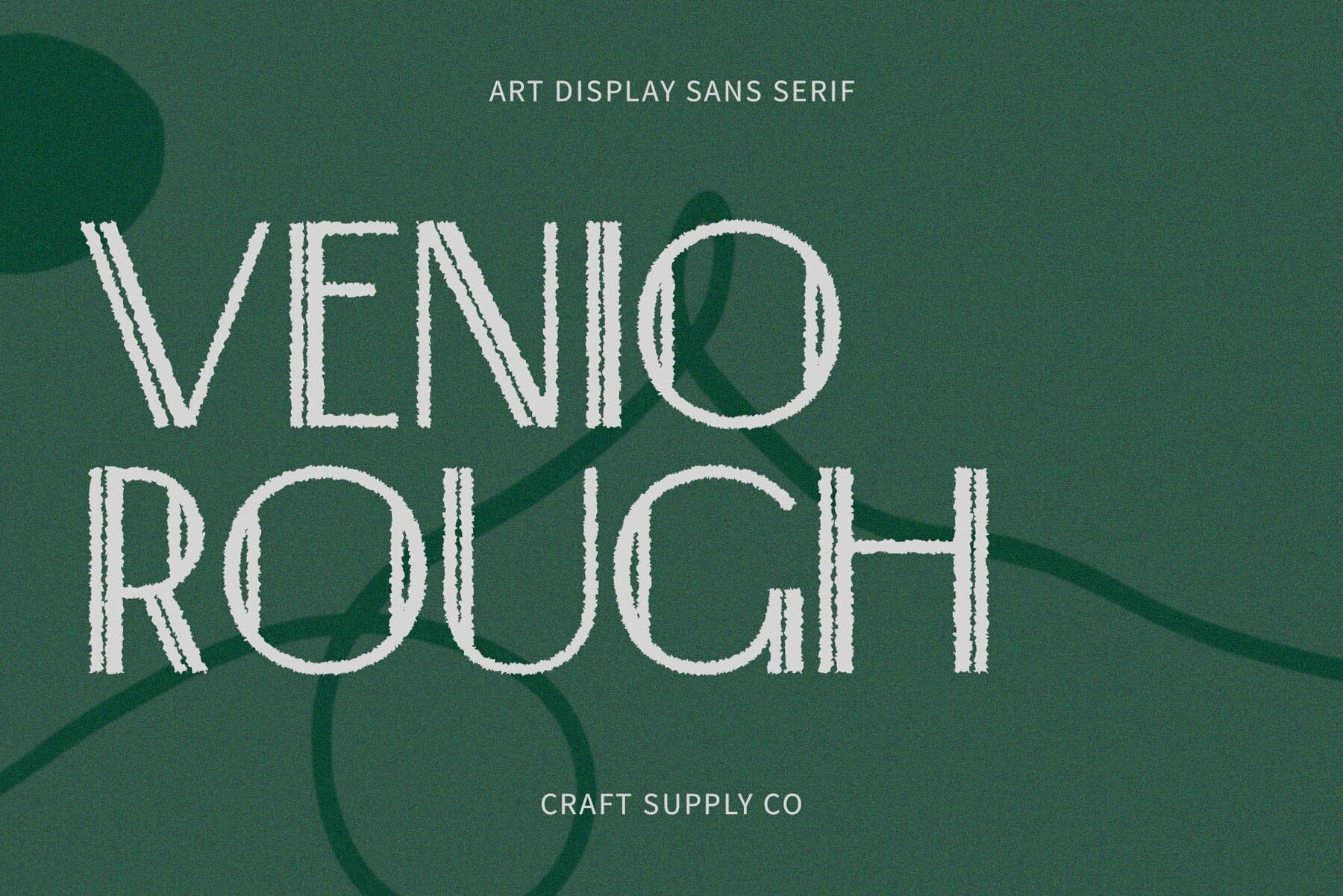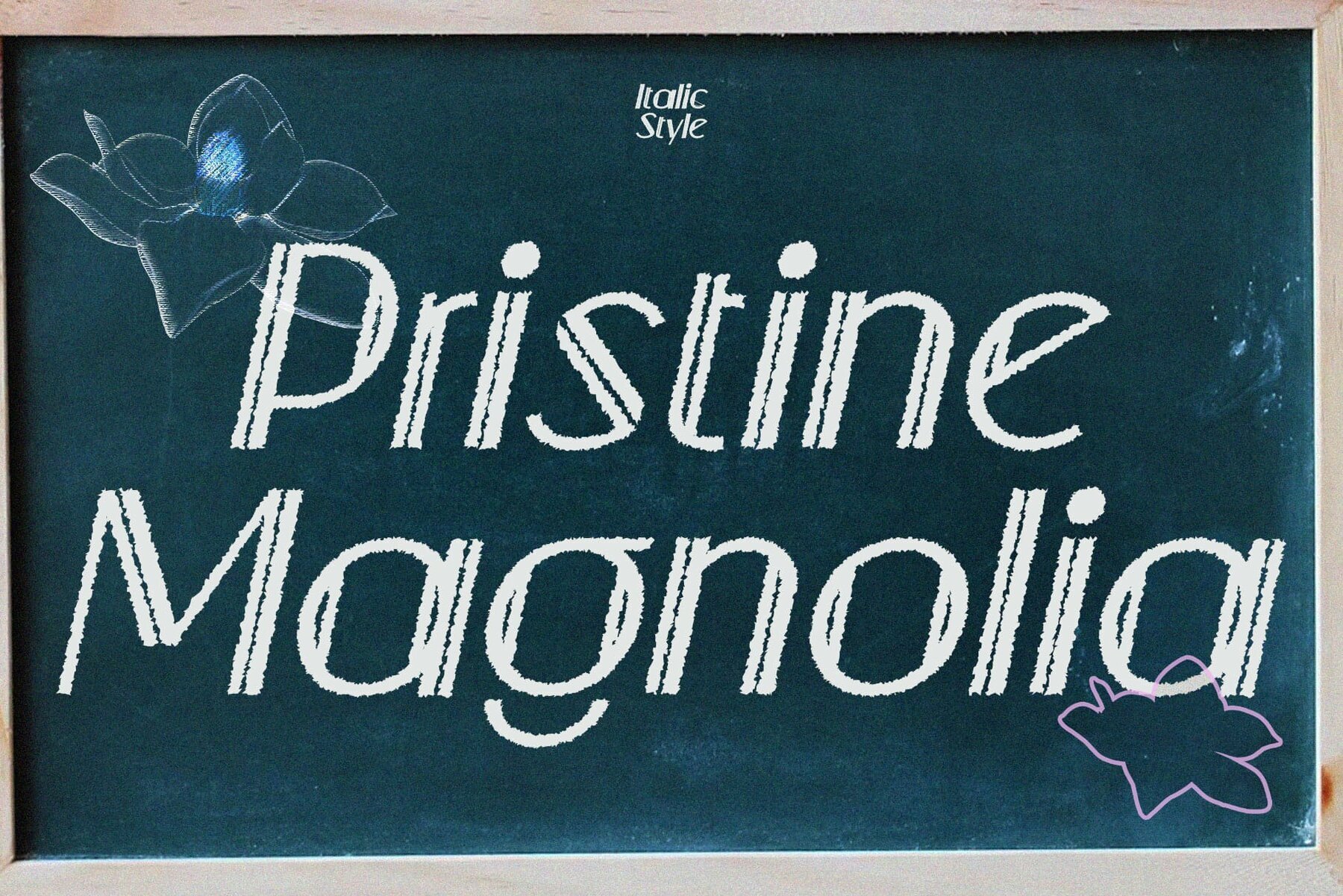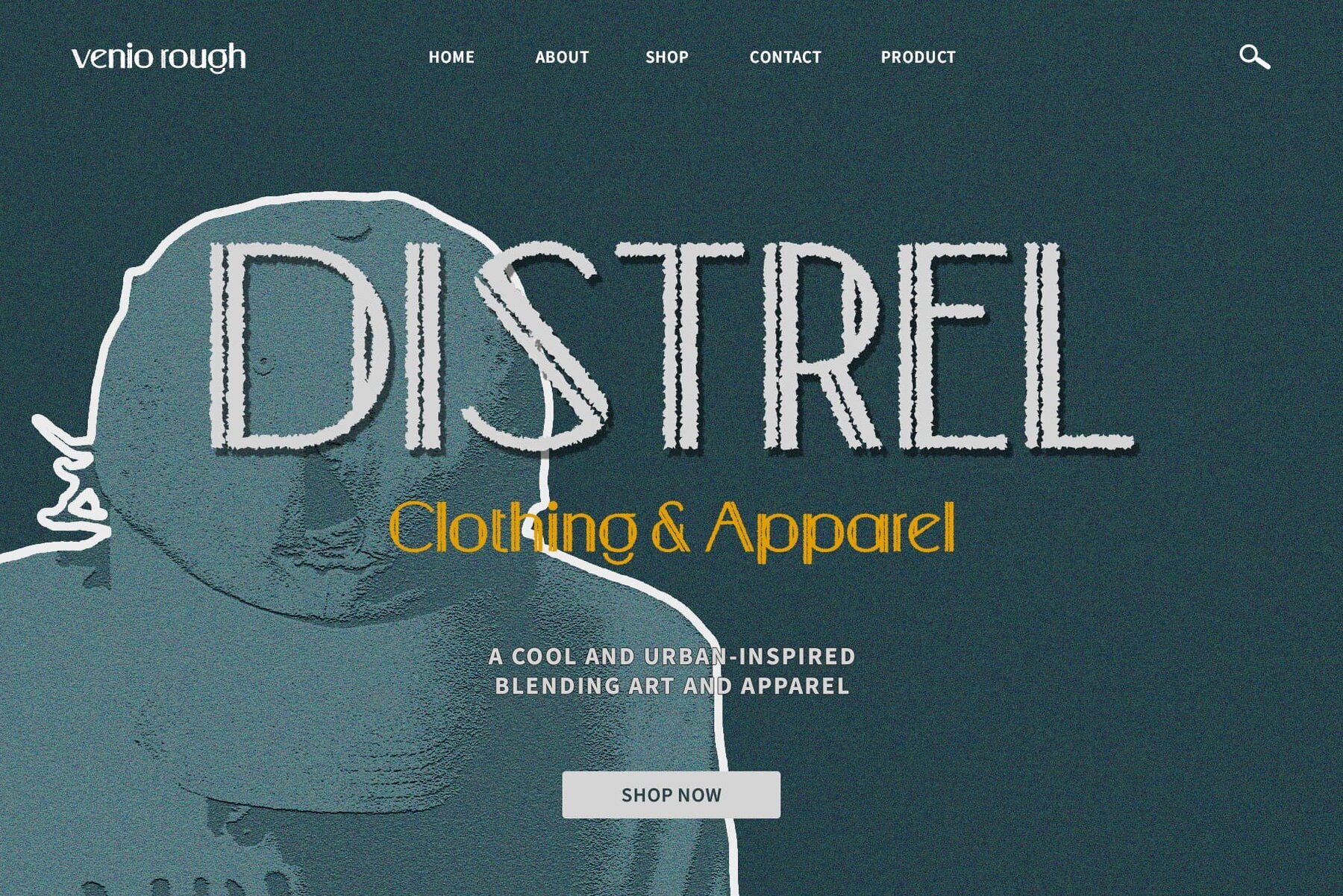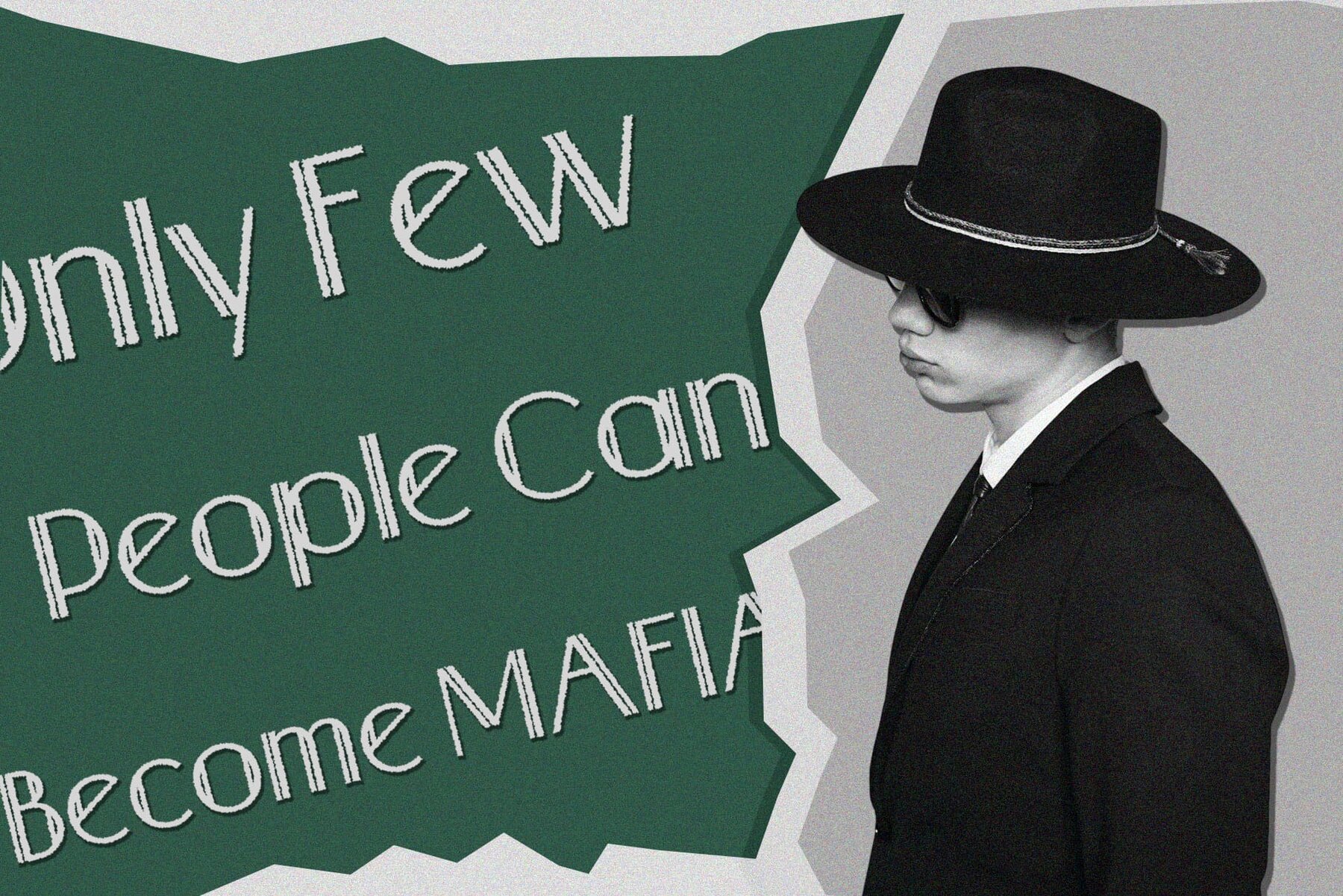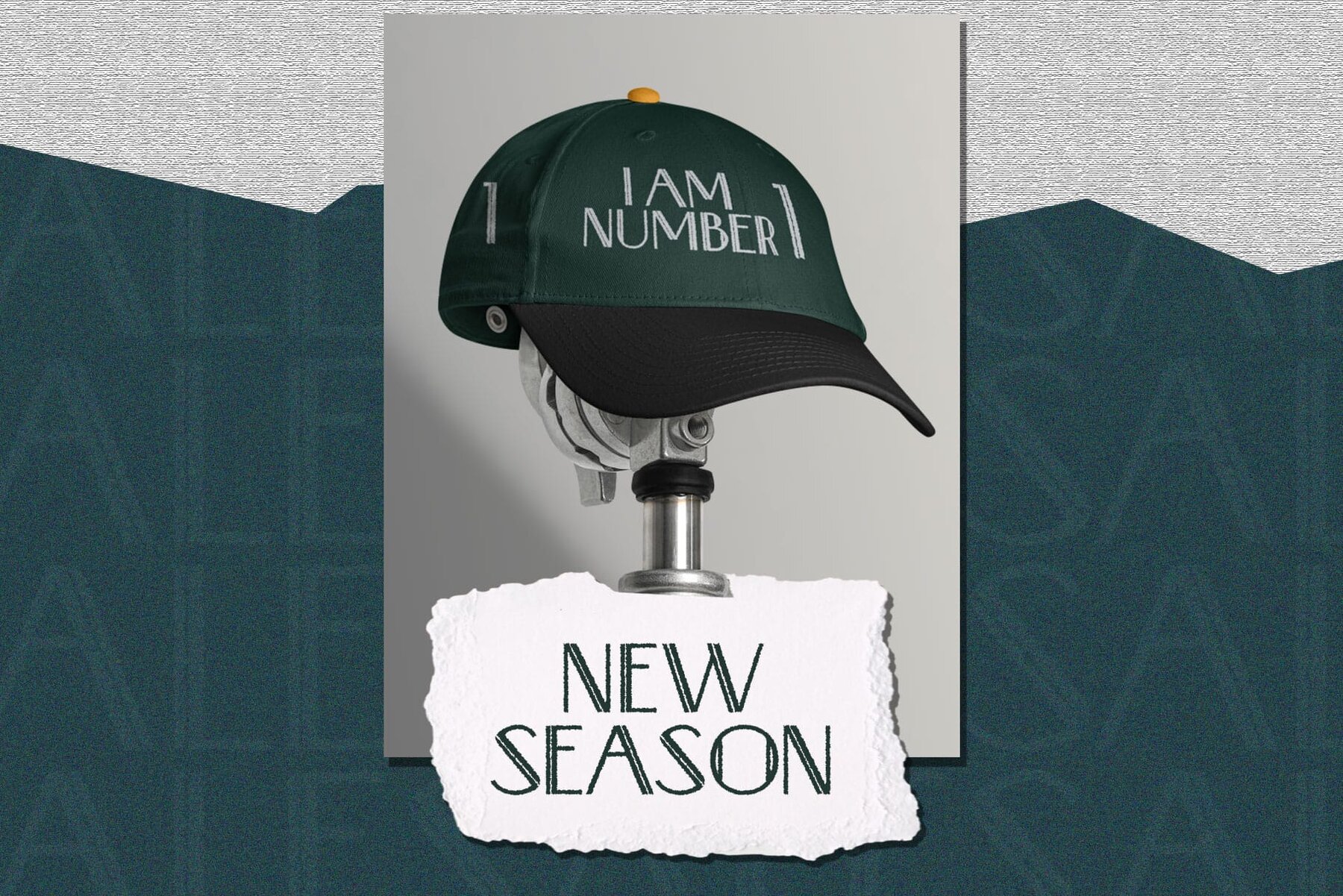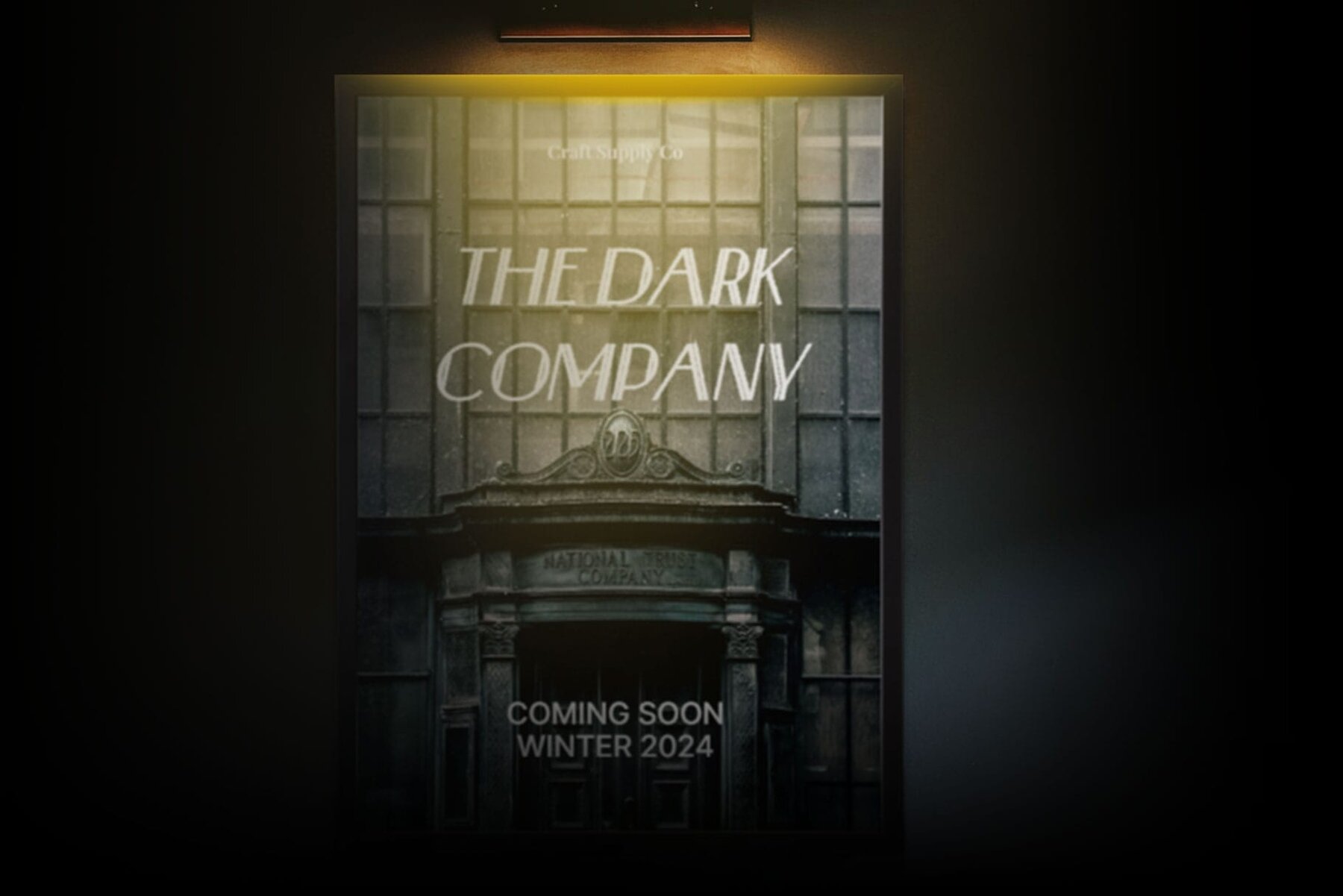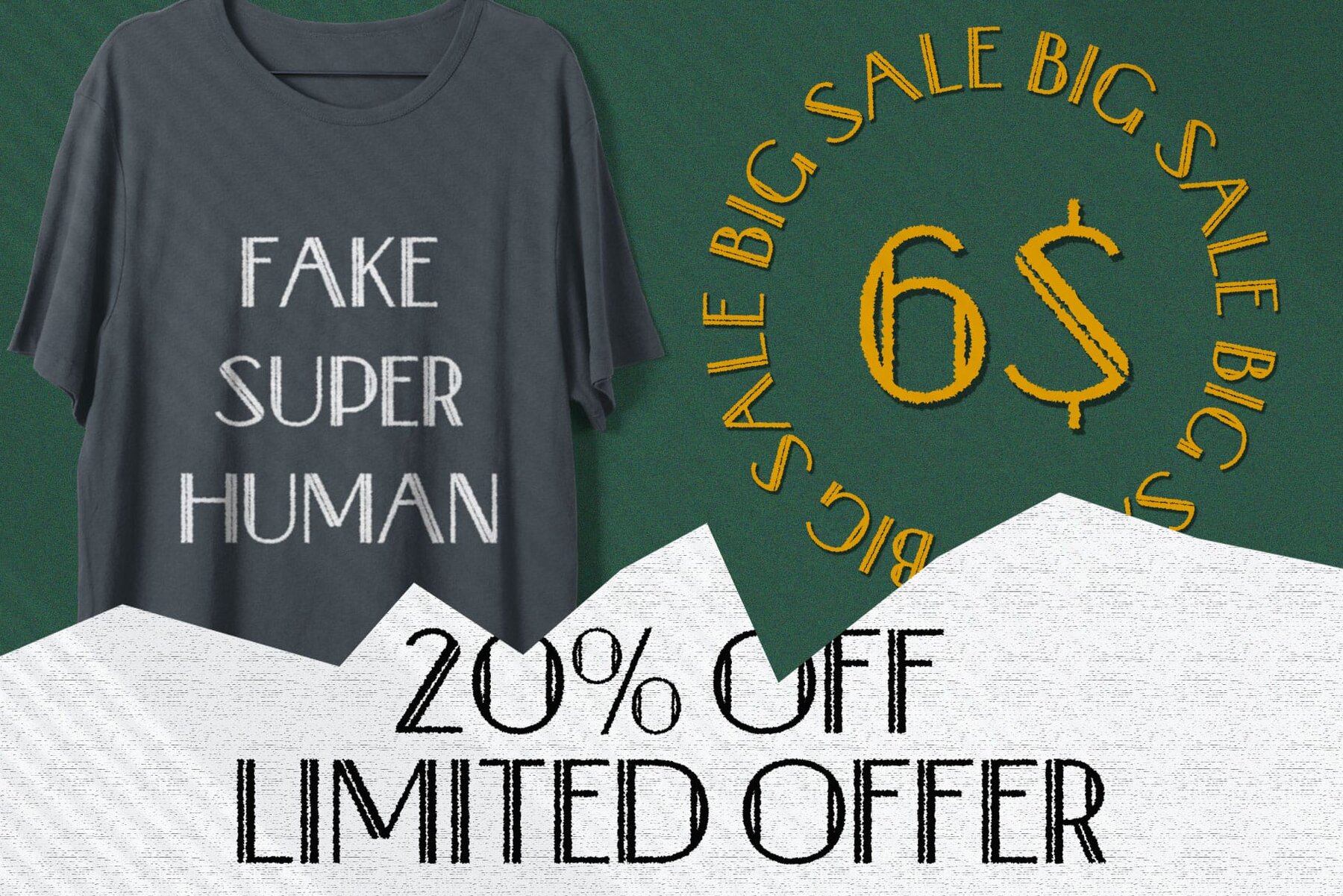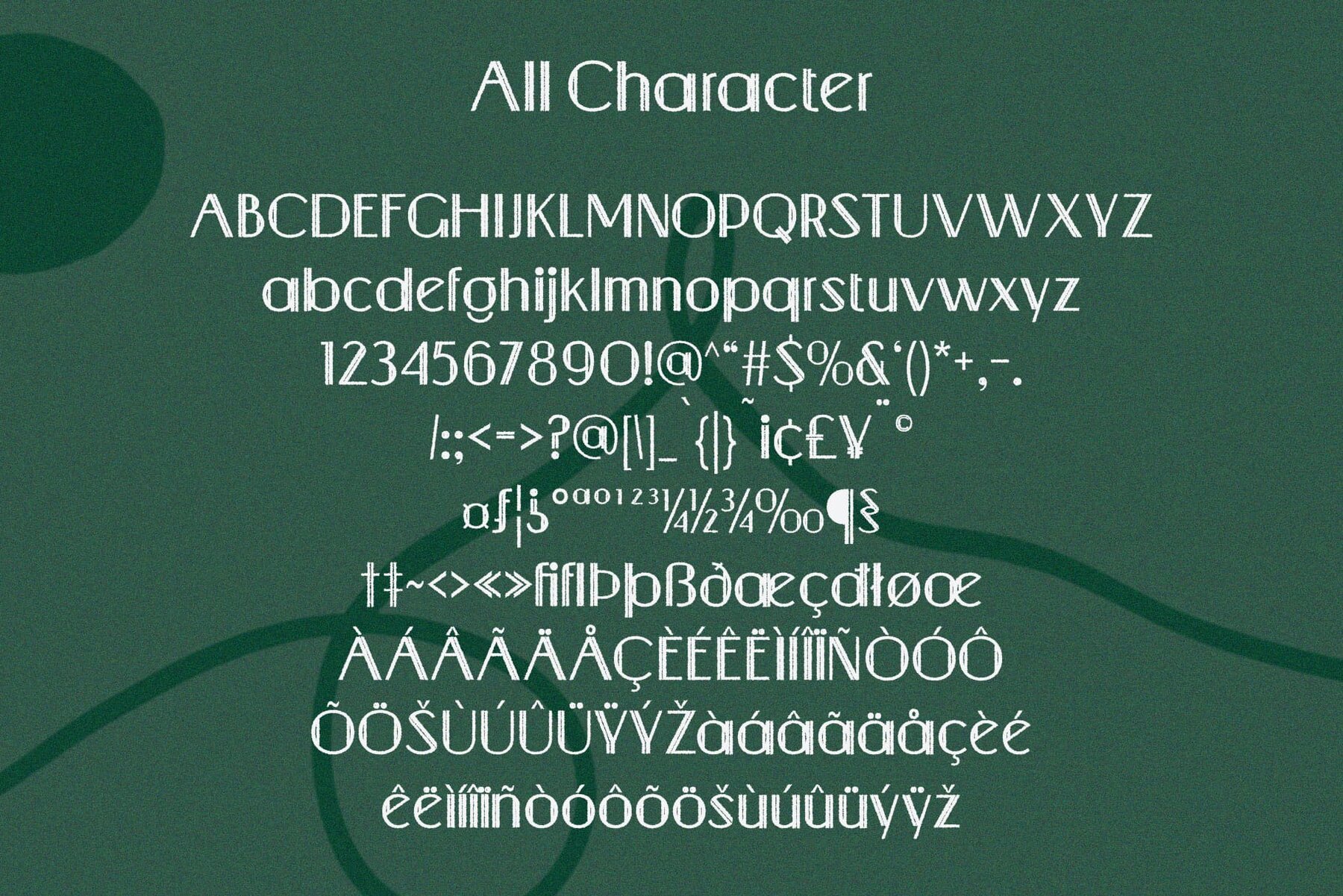
Venio Rough Font
Art Deco Inspiration Drawing inspiration from the iconic Art Deco movement, Venio Rough embodies the geometric shapes and elegant lines characteristic of the era. Its design pays homage to the timeless aesthetic of the 1920s. Infused with a rustic charm, this font features rough effects that add texture and character to its sleek sans serif form. These rough details evoke a sense of handcrafted authenticity, enhancing its appeal for display purposes. This font is tailor-made for display projects, where its bold presence and distinctive style can truly shine. Whether used in posters, headlines, or branding materials, it commands attention and adds a touch of vintage sophistication. Beyond its retro-inspired design, this font offers versatility in application. From digital interfaces to print media, its Art Deco allure brings a touch of glamour to a wide range of design projects, making it a valuable asset for designers seeking to evoke nostalgia and style. This font serves as a modern homage to the elegance of Art Deco design. With its fusion of vintage inspiration and contemporary rough effects, it brings a unique flair to display typography, capturing the spirit of a bygone era while remaining relevant in today’s design landscape. Step into the world of Venio Rough and elevate your designs with its timeless allure. You can use this typeface without needing any specialized software.Venio Rough: Reviving Art Deco Elegance
Rustic Charm with Rough Effects
Perfect for Display Projects
Versatile Application
A Modern Tribute to Art Deco